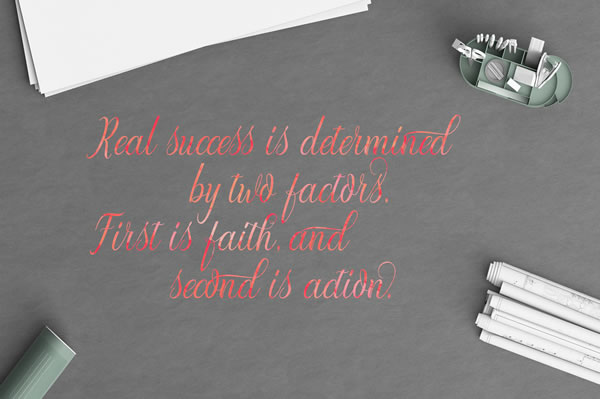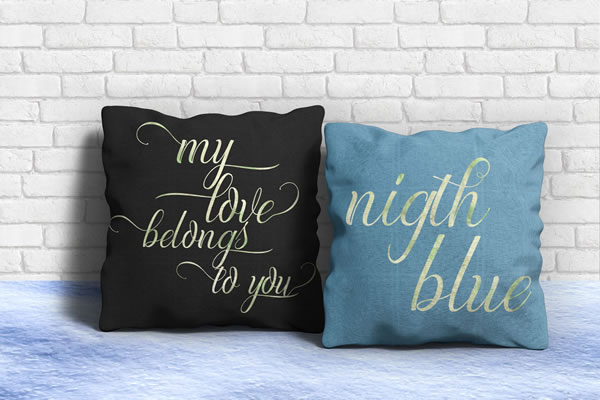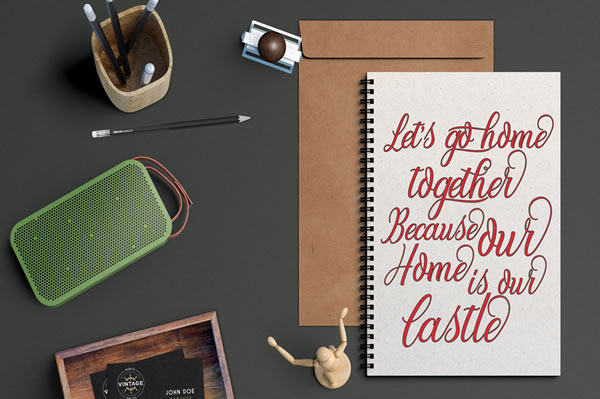
Introduction to Lattonya Font
Lattonya is a handmade font.
The characters of this font go up and down, smooth like a dancer .
Key Features of Lattonya Font